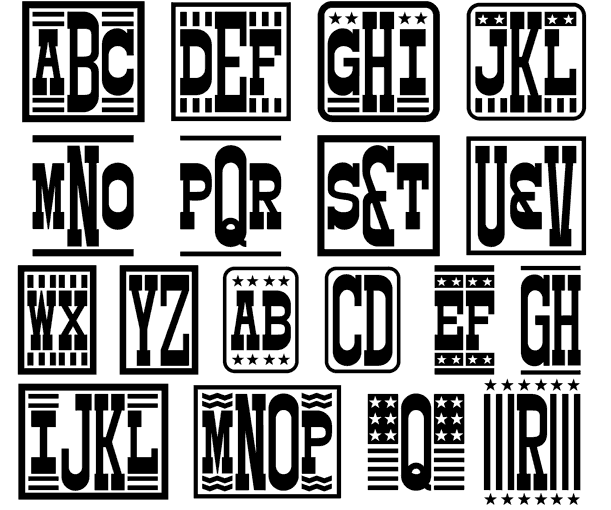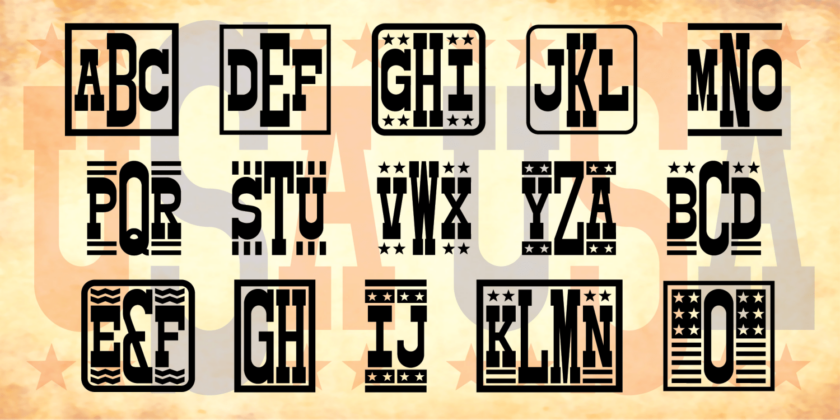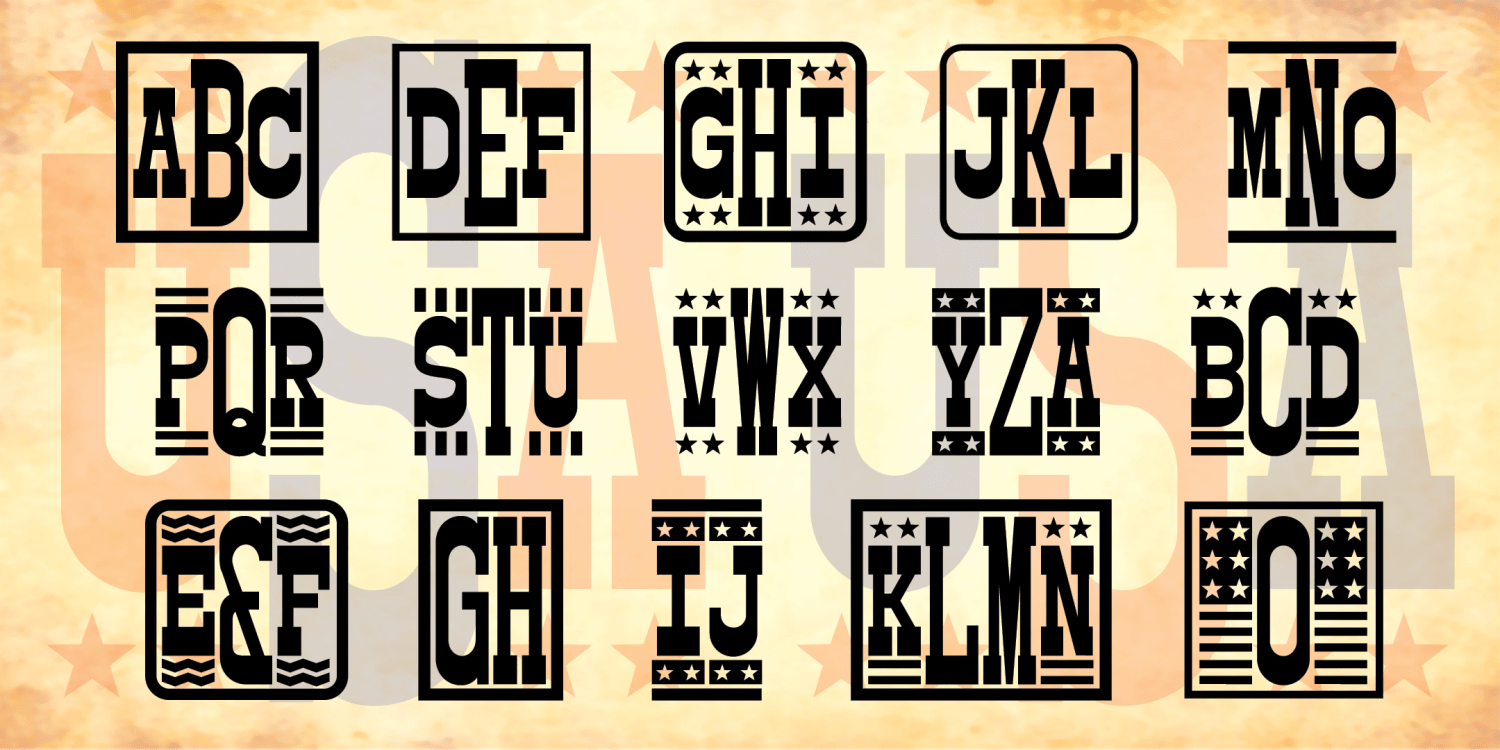
HomeFont BrosDingbatAmerican Monograms DingbatMonograms American Monograms FacebookXPinterestWhatsApp 1 of 2 About American Monograms AMERICAN MONOGRAMS is a unique font to make custom 1-, 2-, 3-, or 4-letter monograms in a bold Western woodtype style with a choice of optional stars and stripes decorations.  DOWNLOAD ON FONT BROSThis font is sold and delivered by Font Bros. Font Canyon may earn a commission if you buy through this link. People also explored YWFT Neighborhood Saturday Font Cappuccino Coffee Font Sunday Font Biely Font Modaft Font Hellowns Font Kapulaga Font Andara Font 210 0 TagsAmerican Monograms Font Previous articleHearst RomanNext articleSensory Overload LEAVE A REPLY Cancel reply Comment: Please enter your comment! Name:* Please enter your name here Email:* You have entered an incorrect email address! Please enter your email address here Website: Save my name, email, and website in this browser for the next time I comment. Personal Use Free Edo SZ Personal Use Free Read more about this font Lost Treasure Personal Use Free Read more about this font Valentine Chips Personal Use Free Read more about this font Goodline Font Personal Use Free Read more about this font BLOG How to Install and Use Fonts on Windows, macOS, and Web Projects How to Install and Use Fonts on Windows, macOS, and Web Projects Fonts are a crucial part of design and branding. Whether you’re designing a... Elegant Wedding Invitation Fonts – Handwritten & Script Fonts Using Fonts in Digital Marketing: Tips to Strengthen Your Brand Identity Where to Buy American Fonts Online in 2024